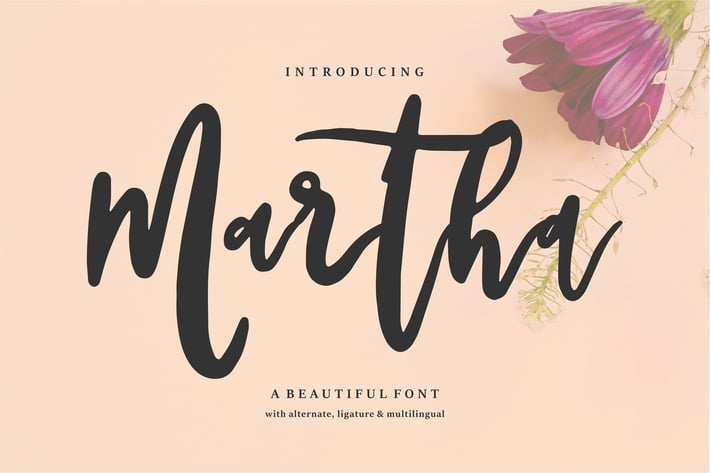
Martha | A Beautiful Font
Martha | A Beautiful Font with a calligraphy style, So beautiful on invitation like greeting cards, branding materials, business cards, quotes, posters, and more!